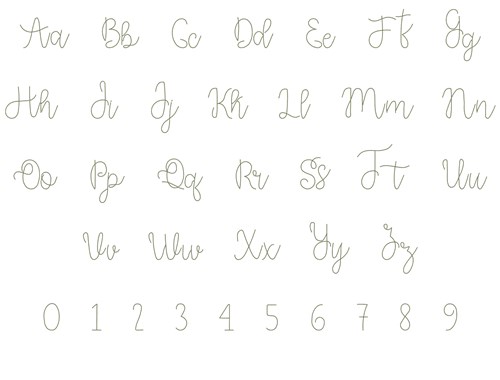
Satin Stripes is happy to present Soft Bloom Embrilliance Embroidery Font - Delicate Cursive Lettering - BX font machine embroidery font which has Stylish script machine embroidery font with flowing lines, ideal for use on fine linens and decorative pillows. Available in BX font and Embrilliance formats. included. If you would like to view more embroidery fonts and alphabets please search our embroidery fonts page.
Soft Bloom Embrilliance Embroidery Font - Delicate Cursive Lettering - BX font